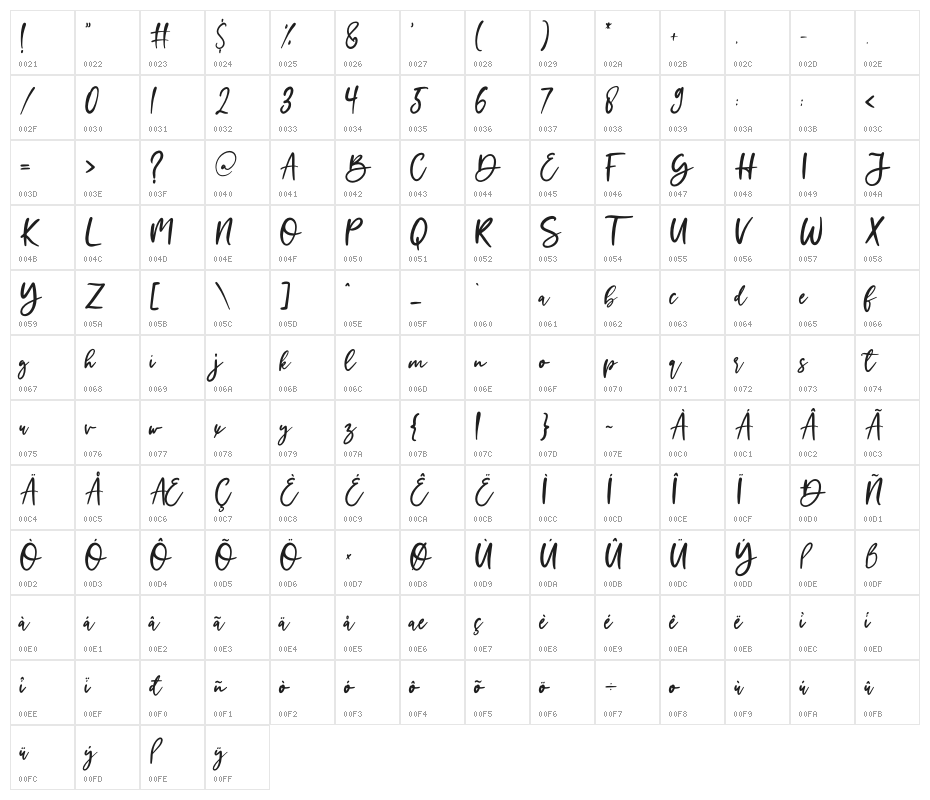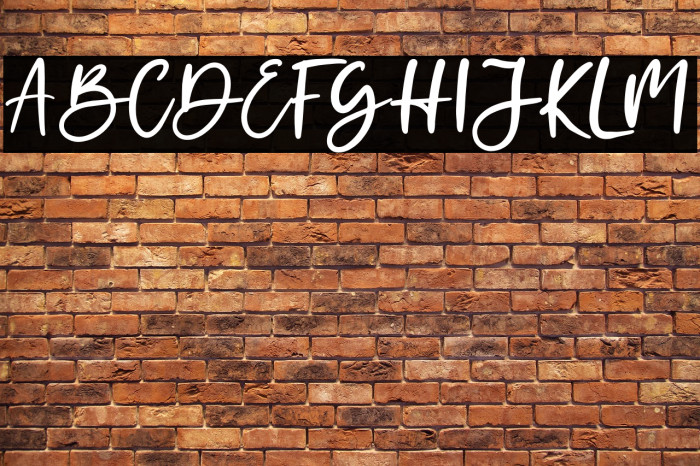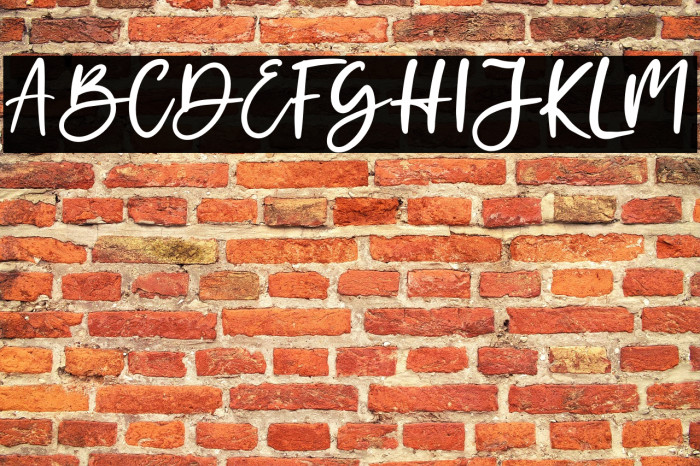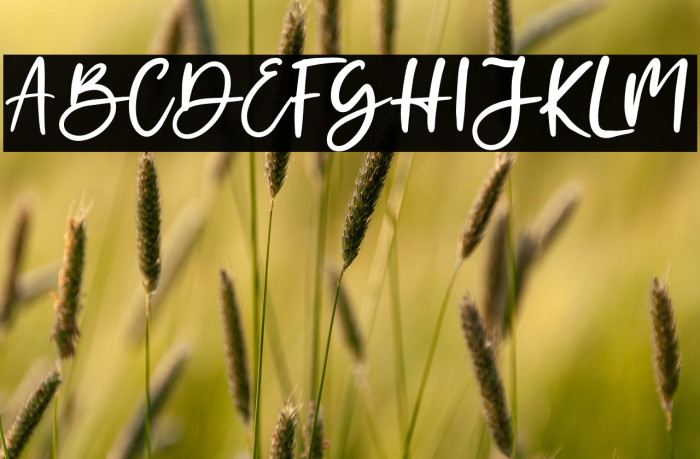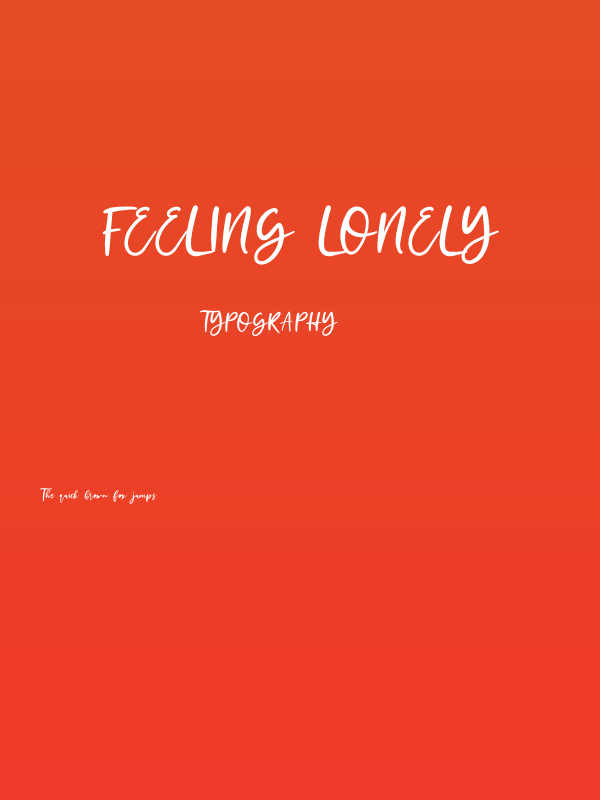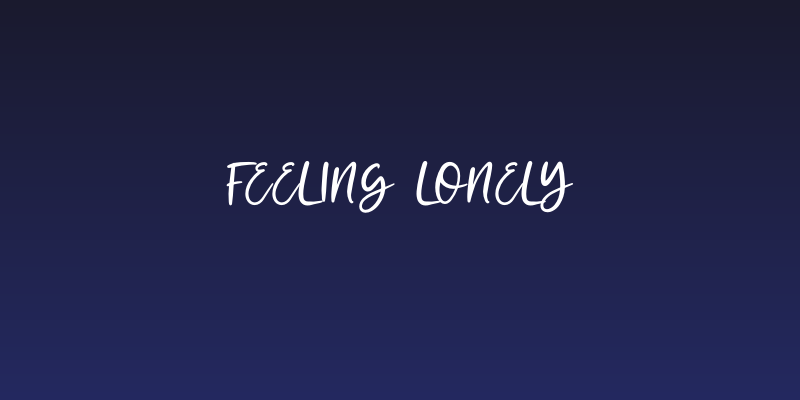
feeling lonely Font
feeling lonely Description
This font exudes a casual, handwritten style with a modern flair. The letters are fluid and connected, giving an impression of a personal touch and warmth. The uppercase letters are bold and slightly slanted, while the lowercase letters maintain a consistent flow with a slight cursive influence. Numbers and special characters follow the same stylistic approach, ensuring uniformity across all glyphs. The strokes vary in thickness, adding a dynamic and lively feel to the text. This font is perfect for projects that require a personal, approachable, and friendly aesthetic.